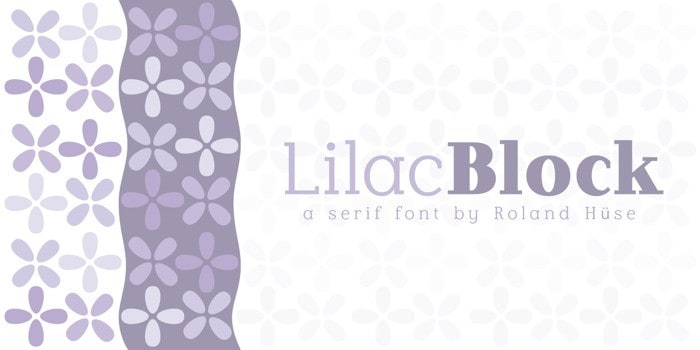
Lilac Block Slab Serif Font
Lilac Block Slab Serif Font – Luxury and elegant slab serif font. Made from font designer named Roland Huse Design. This is perfect for your up coming projects. Such as luxury logo and branding, classy editorial design, magazine, fashion promotional, boutique branding, stationery design, blog design, modern advertising design, card invitation, art quote, home decor, book/cover title, special events and any more.